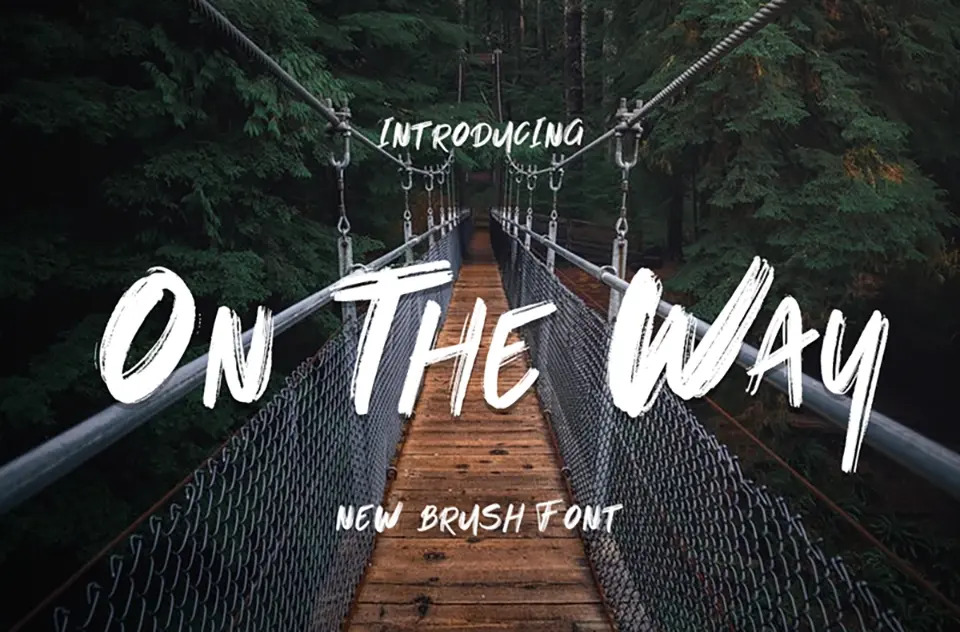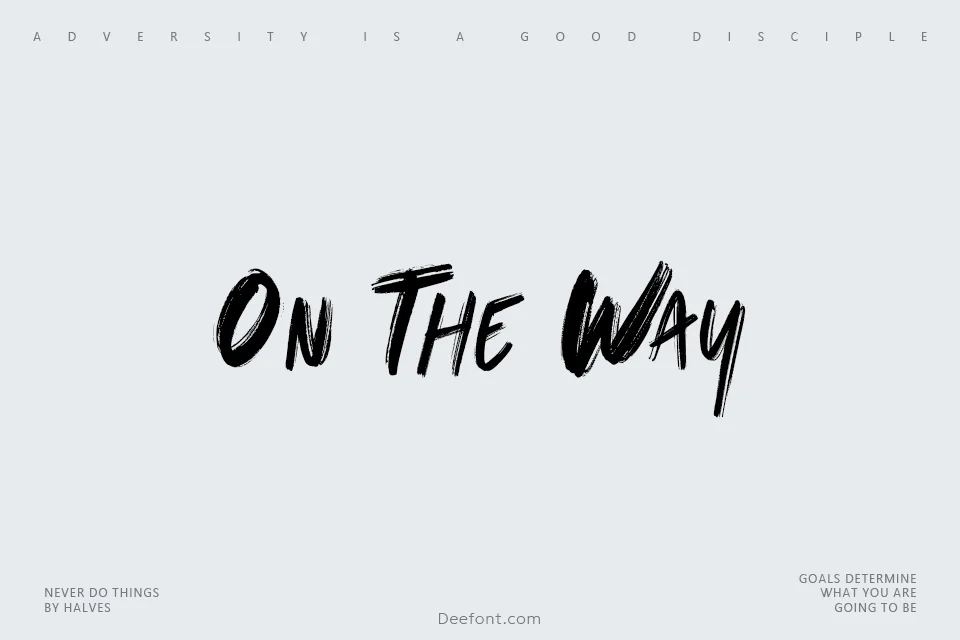
On The Way Font
On The Way is a dynamic script brush font designed by Symphony Studio, featuring natural and energetic strokes perfect for creative designs. This handwritten-style typeface combines smooth curves with varied line weights, making it ideal for branding, invitations, and artistic projects that require a personal, organic touch.